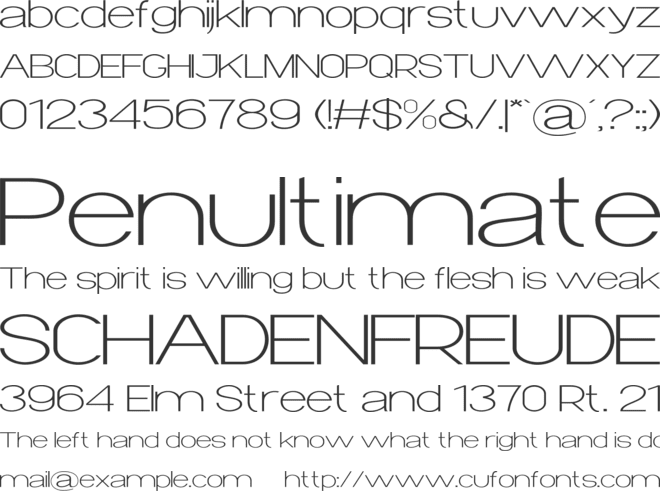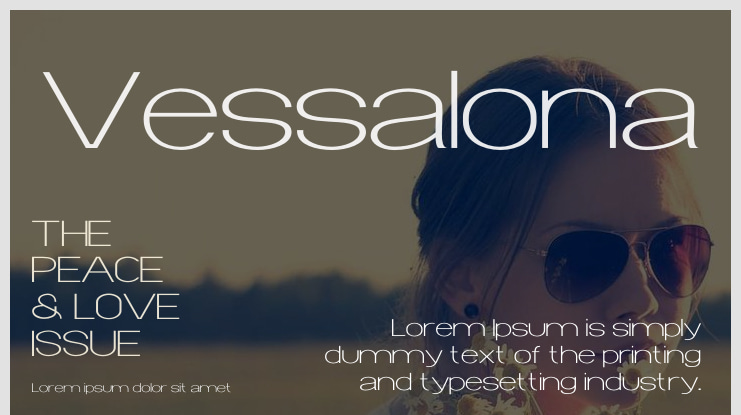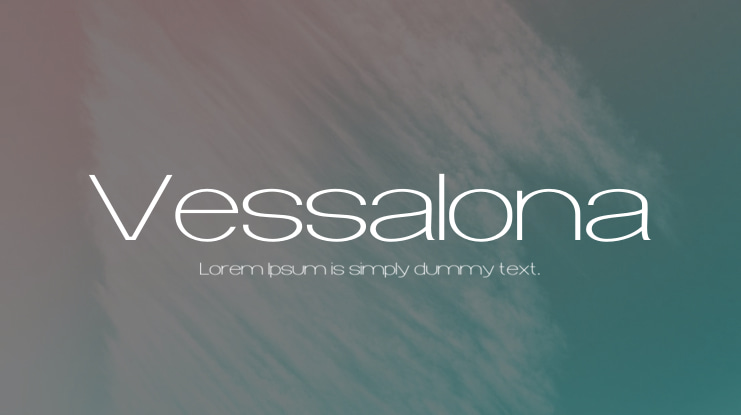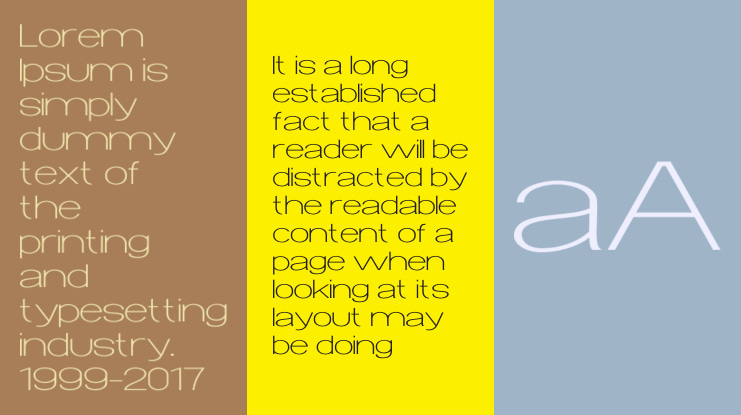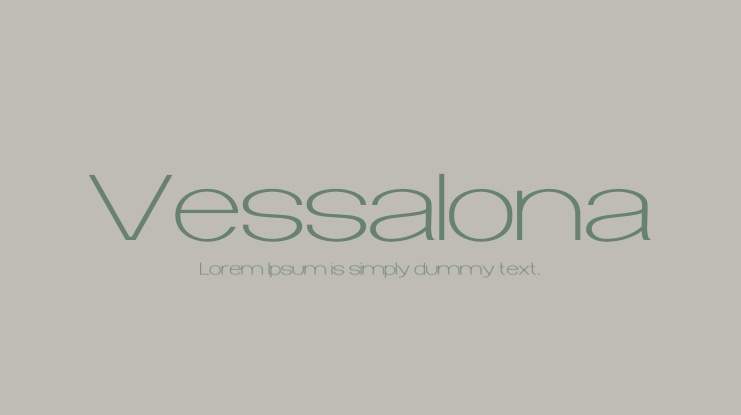
Vessalona Font
Introducing "Vessalona," a minimalist typeface that embodies elegance through simplicity. Each character in Vessalona is crafted with clean lines and balanced proportions, making it versatile and easy to read. The subtle geometric influences lend it a modern, sophisticated touch without compromising its approachable feel. Perfect for branding, headlines, and editorial design, Vessalona adds a sense of understated luxury to any project. Its minimalist style ensures readability while exuding a refined and contemporary aesthetic.